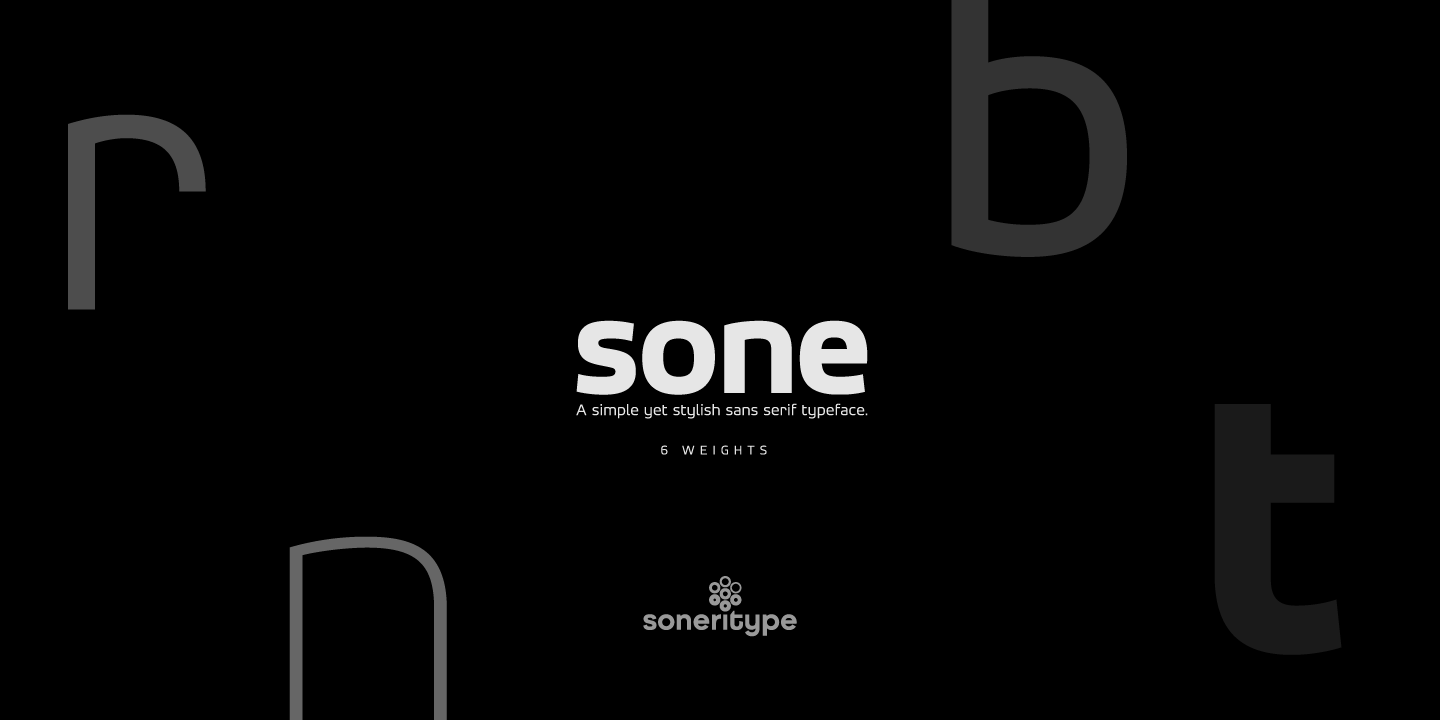
Sone Font is perfect for minimalist brand identity, clean editorial layouts, modern architectural signage, contemporary art gallery displays, sleek product packaging, sophisticated web design, premium tech interfaces, elegant corporate communications, refined fashion labels, and understated luxury branding.
What makes Sone Font so exciting is its refined simplicity that embodies the power of understated elegance and sophisticated minimalism. This typeface features clean, geometric letterforms with precise construction and subtle character that communicates quiet confidence and modern sophistication. The font's serene and polished character conveys professionalism and clarity, making it perfect for brands seeking to establish premium positioning through the timeless appeal of minimalist design principles and the compelling beauty of restrained elegance.
Sone Font family includes Thin, Light, Regular, Medium, Bold, and Black weights, along with corresponding italic styles that maintain the font's clean character. The family also features special character sets including minimalist symbols, geometric elements, and refined punctuation marks that enhance the font's connection to contemporary and sophisticated design themes.
Sone Font supports comprehensive character sets including Latin alphabets, numbers, punctuation marks, and special minimalist symbols. The font's precisely balanced spacing creates visual harmony while ensuring superior readability across all applications. Its OpenType features include contextual alternates, refined ligatures, and sophisticated typography options that expand creative possibilities for contemporary design projects.
Professional designers choose Sone Font for projects requiring authentic minimalist appeal and contemporary sophistication. The font excels in applications where clean aesthetics and modern elegance are essential, offering the perfect solution for brands seeking to communicate quality, sophistication, and refined taste. Its minimalist character makes it ideal for luxury brands, architectural firms, and premium lifestyle companies.